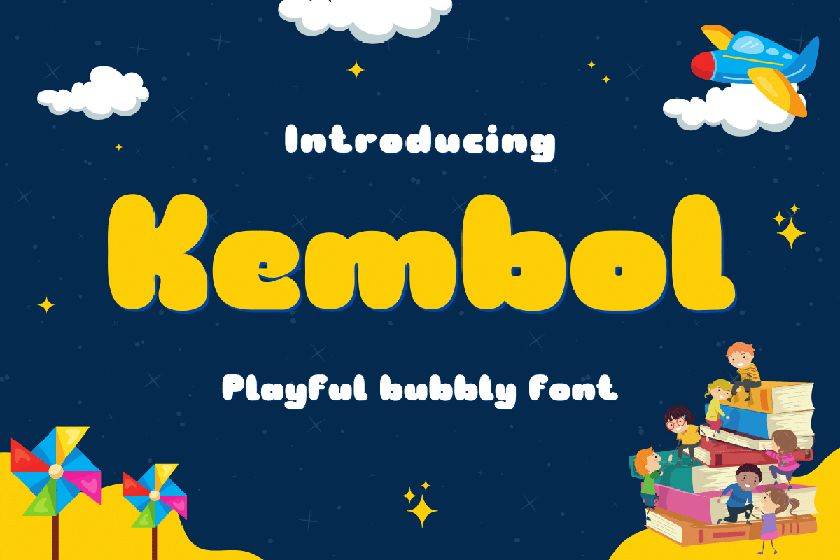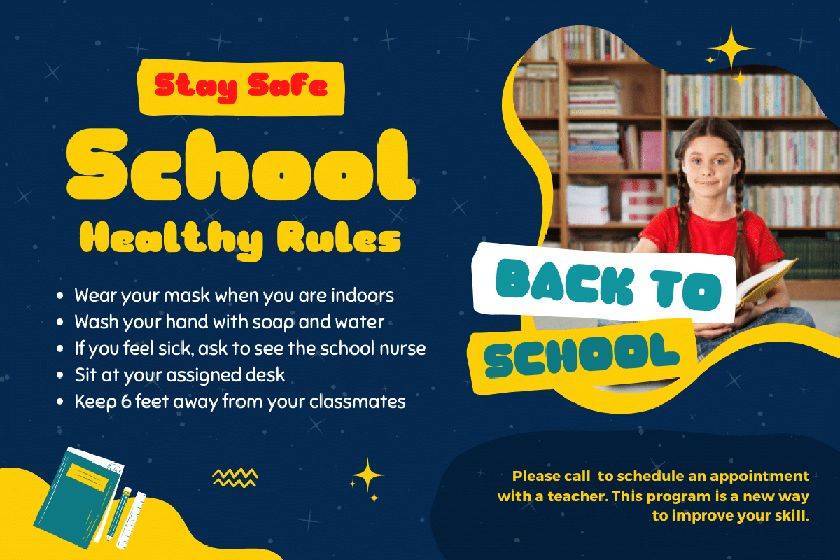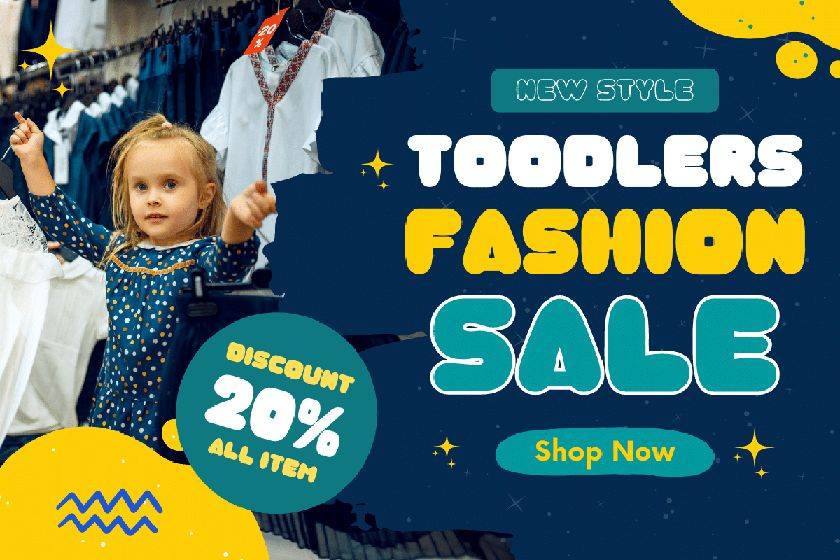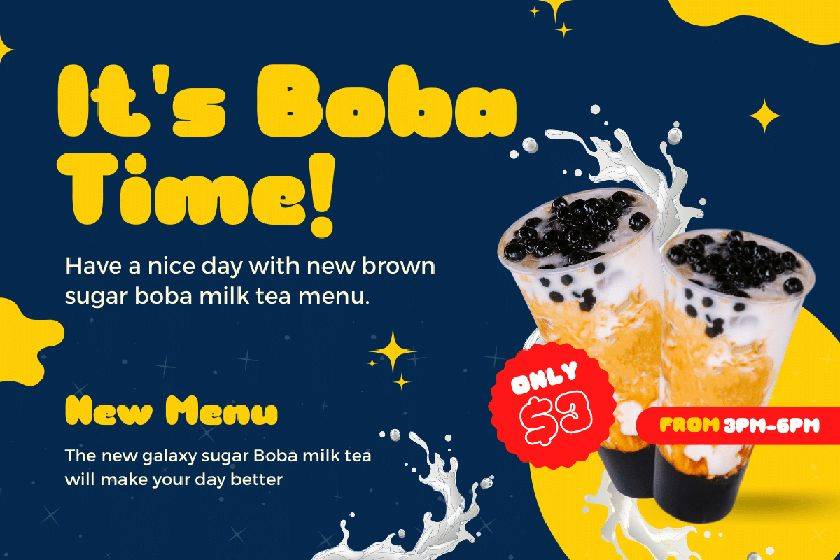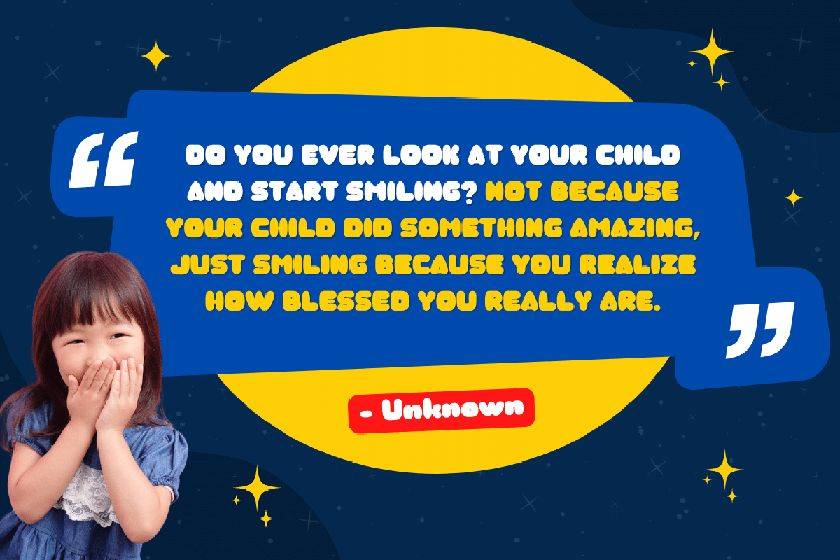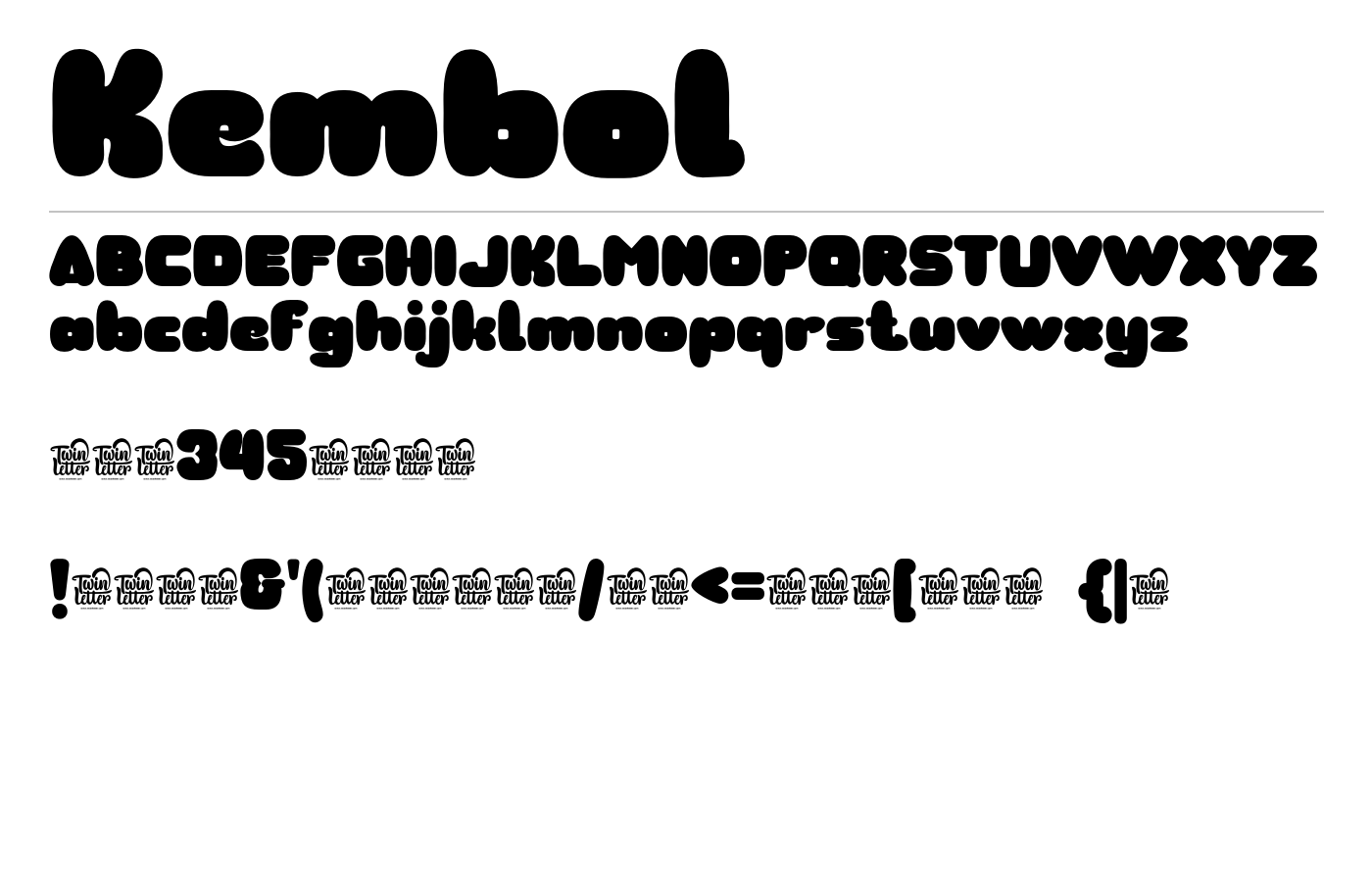
Kembol is a bold, rounded sans serif font with a playful and friendly vibe. Its thick, soft letterforms with consistent stroke weight make it ideal for eye-catching headlines, logos, and branding aimed at a youthful or casual audience. This font works well in designs that want to convey warmth and fun with clear, approachable readability.
Kembol Font
About Kembol Font